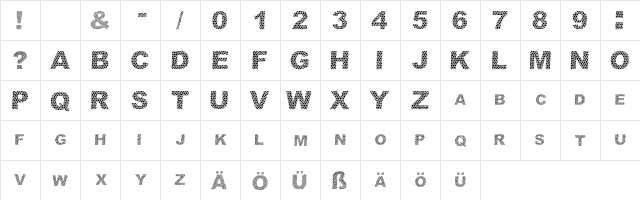
dark skin Regular Font Preview
dark skin Regular
dark skin Regular Font Details
Design Context for dark skin Typeface
dark skin is a composed and adaptable typeface that performs quietly and consistently across a wide range of design contexts.